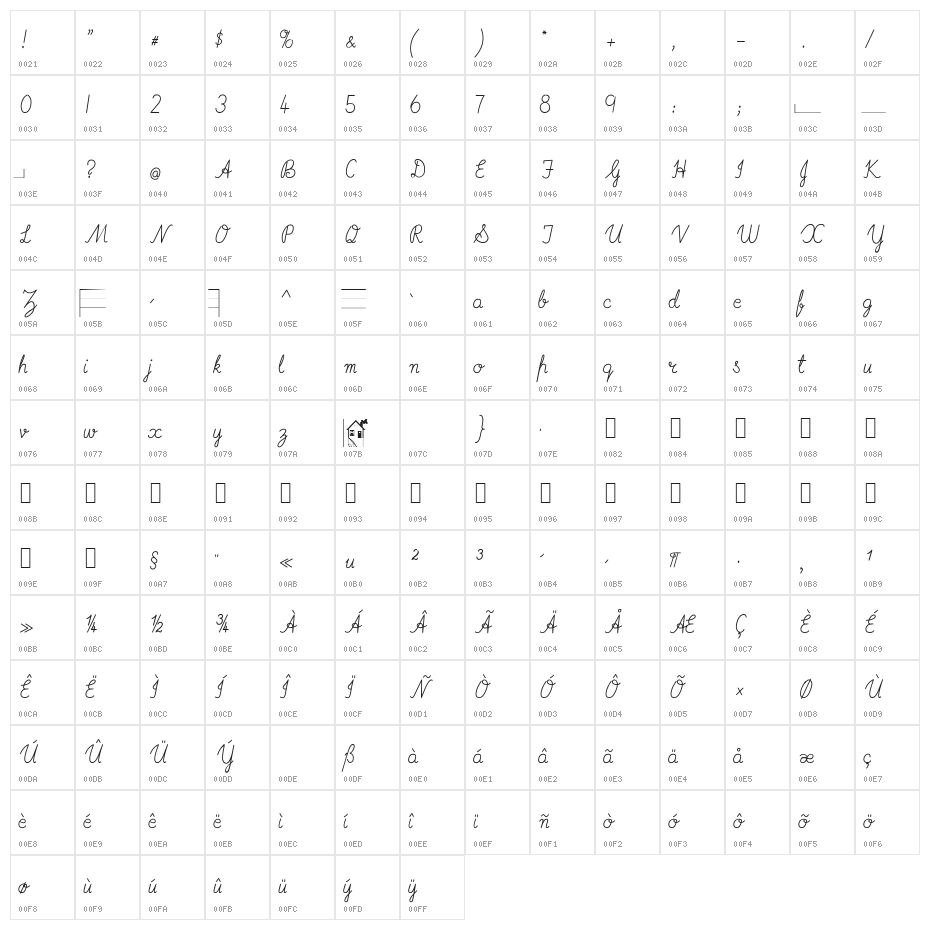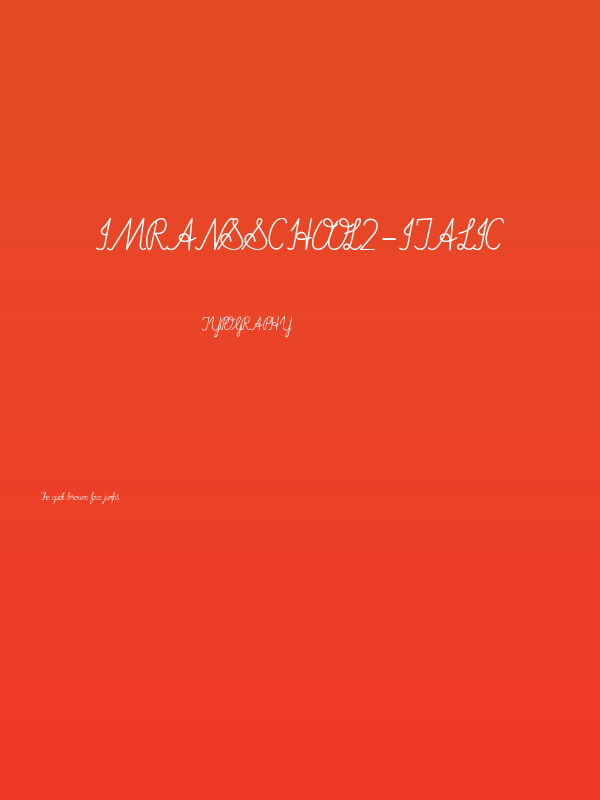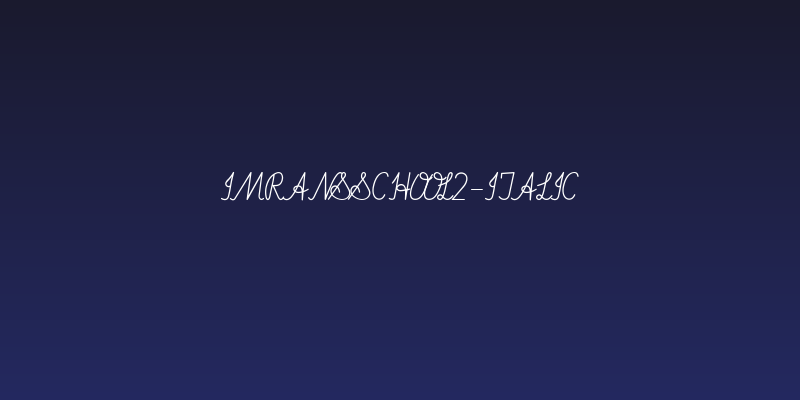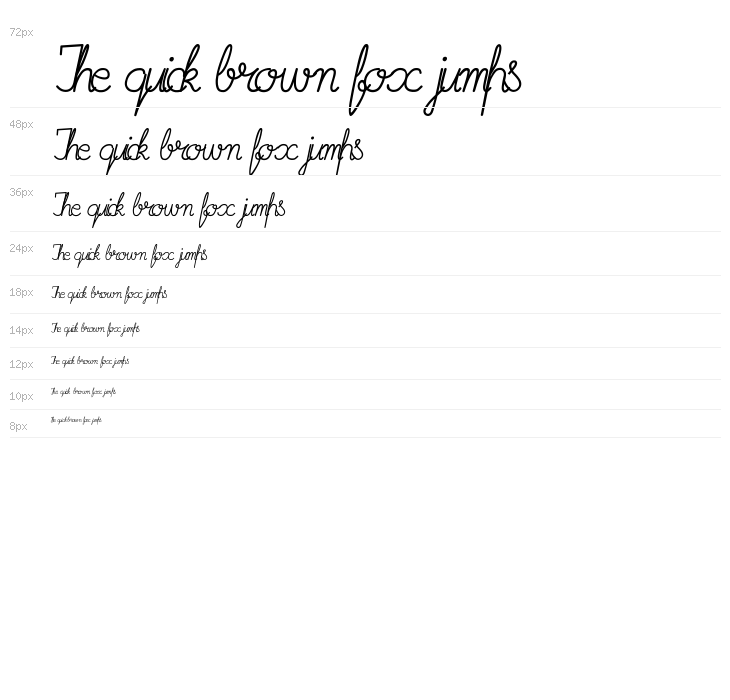
ImransSchool2-Italic Font
ImransSchool2-Italic Description
This font features an elegant, flowing script style with a distinct italic slant, giving it a sophisticated and graceful appearance. The characters are interconnected, creating a seamless and fluid look that is both stylish and readable. The uppercase letters are tall and slender, while the lowercase letters maintain a consistent flow, enhancing the script's elegance. The numerals are clear and maintain the same flowing style, making them easily distinguishable. Special characters are designed to complement the overall aesthetic, ensuring a cohesive look across all text elements. This font is ideal for projects that require a touch of elegance and sophistication.
| Overall Style | Elegant, Sophisticated |
| Use Case | Headlines, Invitations, Branding |
| Proposed Projects | Wedding invitations, elegant branding, greeting cards, and formal event programs. |